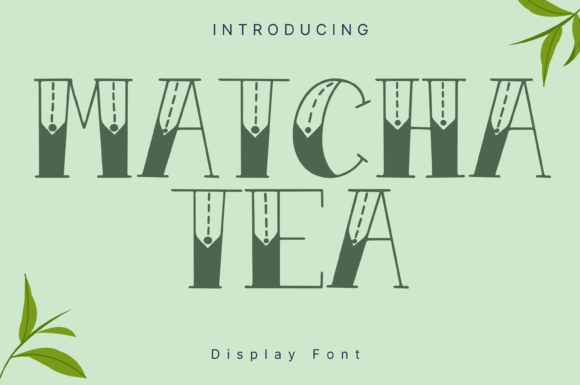
Behold, the Matcha Tea Font – an enchanting display font that's sure to tantalize your creative senses!
With its delectable curves and refreshing design, Matcha Tea is the perfect font for adding a touch of whimsy and charm to your projects. Whether you're crafting logos, designing invitations, or creating social media posts, this font will elevate your creations with its undeniable allure.
As a member of the display font family, Matcha Tea possesses an innate elegance and grace. Its meticulously crafted characters dance across the page, captivating the eyes and drawing readers into your message. Each letterform is a work of art, adorned with delicate strokes and charming details that make your words come alive.
Step into a world of boundless creativity with Matcha Tea. Its versatility knows no bounds, making it the ideal choice for a wide range of projects. Let your imagination run wild as you explore the countless possibilities that await you with this font.
Experience the allure of Matcha Tea today and witness the transformation it brings to your creative endeavors. Its captivating charm will leave a lasting impression on your audience, ensuring that your message resonates with them on a deeper level.
So, embrace the beauty of Matcha Tea and unlock the door to a realm of enchantment and creativity. Let your words dance and your designs bloom with this captivating font that's sure to leave an indelible mark on your audience.